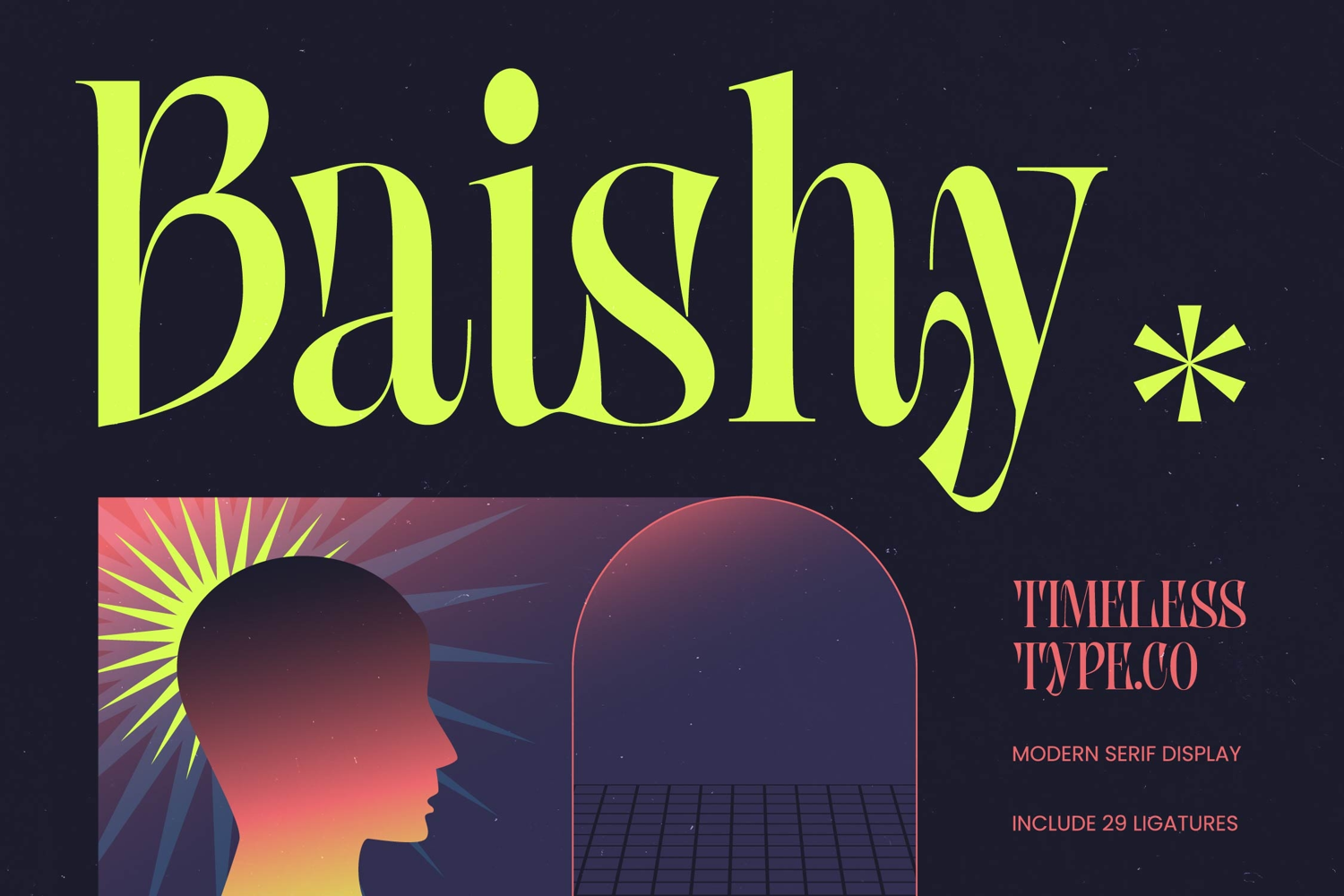
Baishy - Modern Serif Display
Elevate your creative vision with a typeface that embodies sophisticated modernism. Baishy - Modern Serif Display is a masterpiece of contemporary typography, blending high-contrast strokes with sharp, refined serifs to create a visual impact that is both timeless and trendy. Its unique balance of dramatic proportions offers a sense of high-end luxury and artistic flair, making it an essential asset for designers seeking to make a bold statement in every layout.
Precision-engineered for excellence, this font is the ultimate choice for high-impact visual identity. Baishy - Modern Serif Display is perfect for luxury branding, high-end fashion editorial, premium cosmetic packaging, and sophisticated advertising. Whether you are crafting a bespoke logo or designing a minimalist website header, this typeface ensures your message is delivered with unmatched prestige and professional authority.